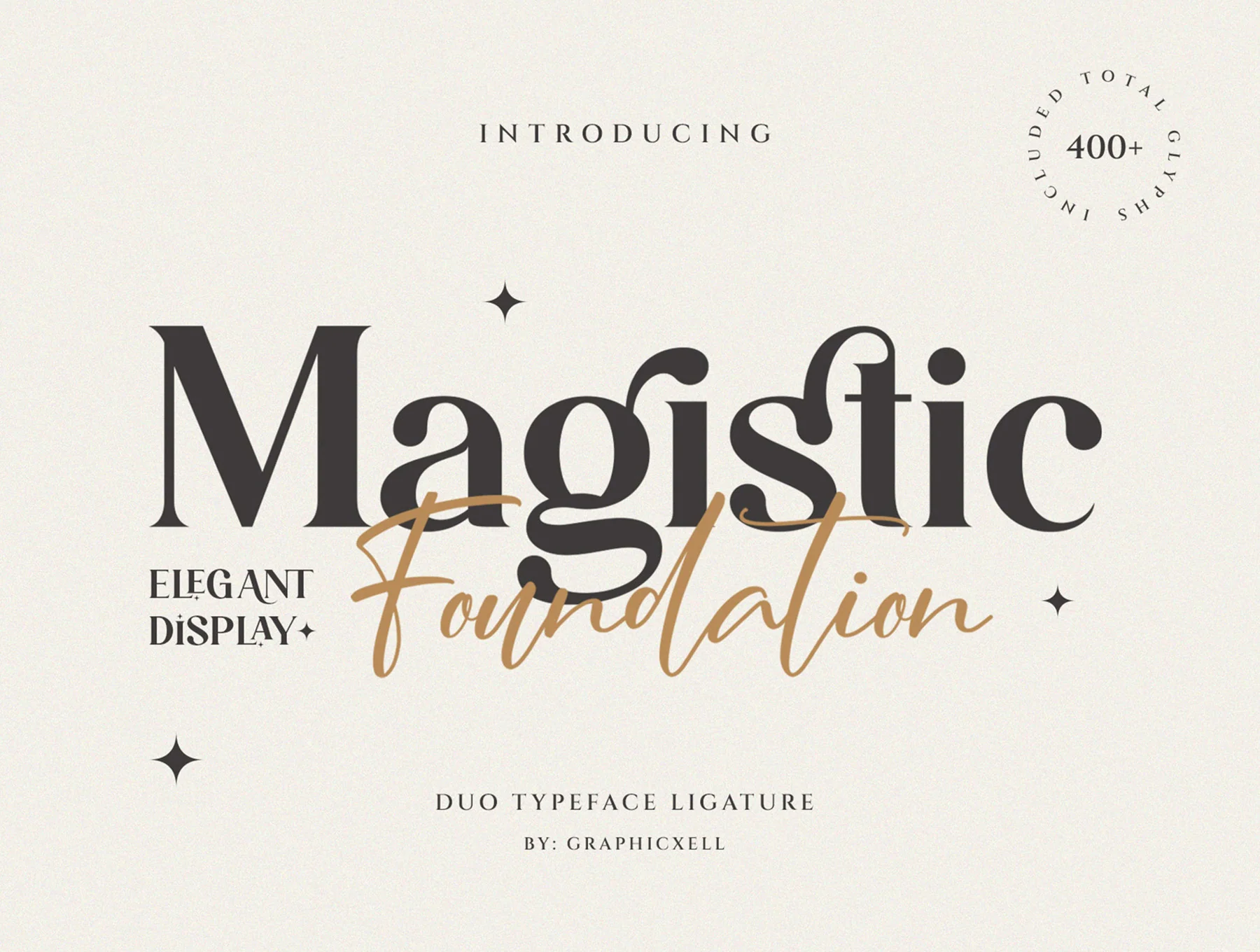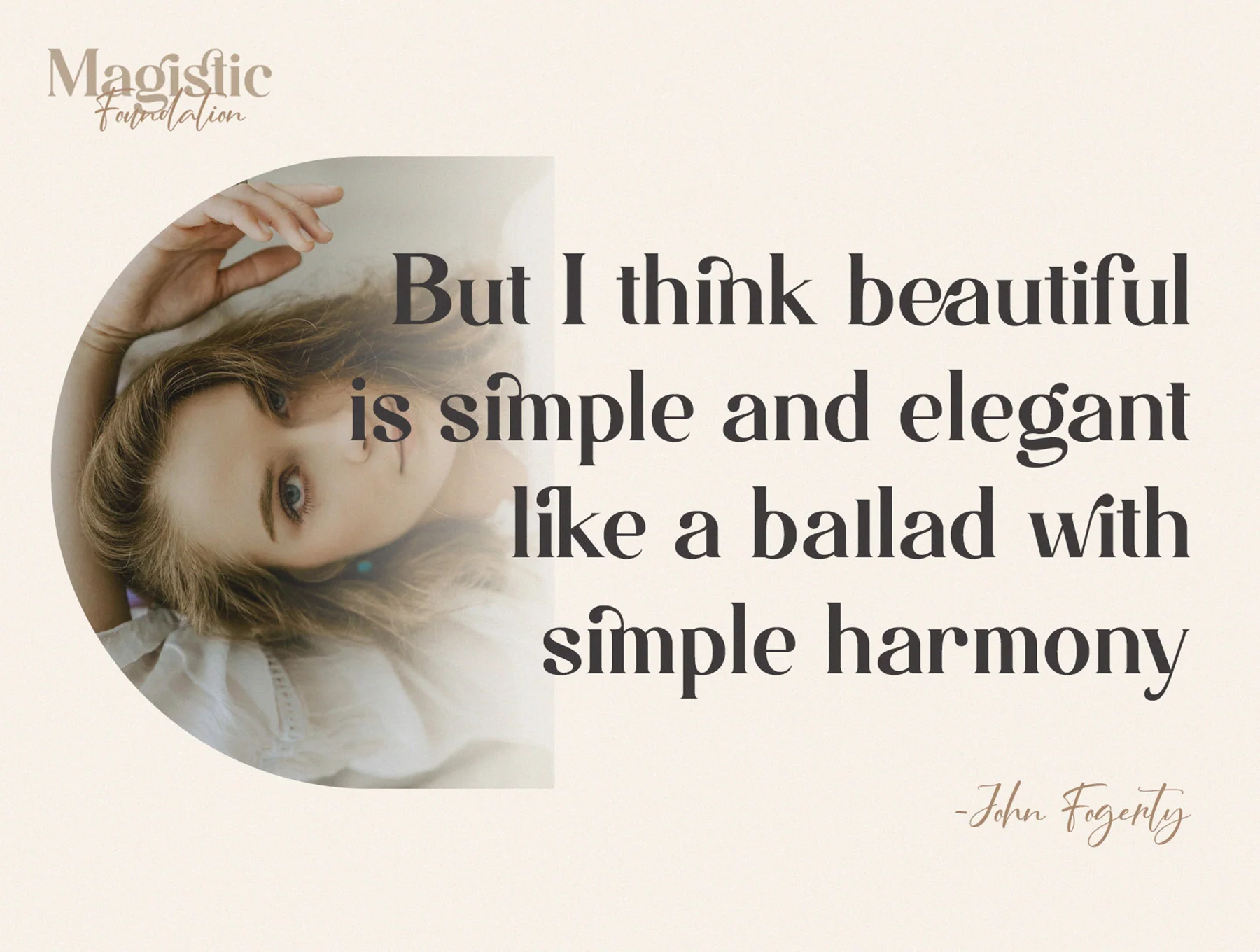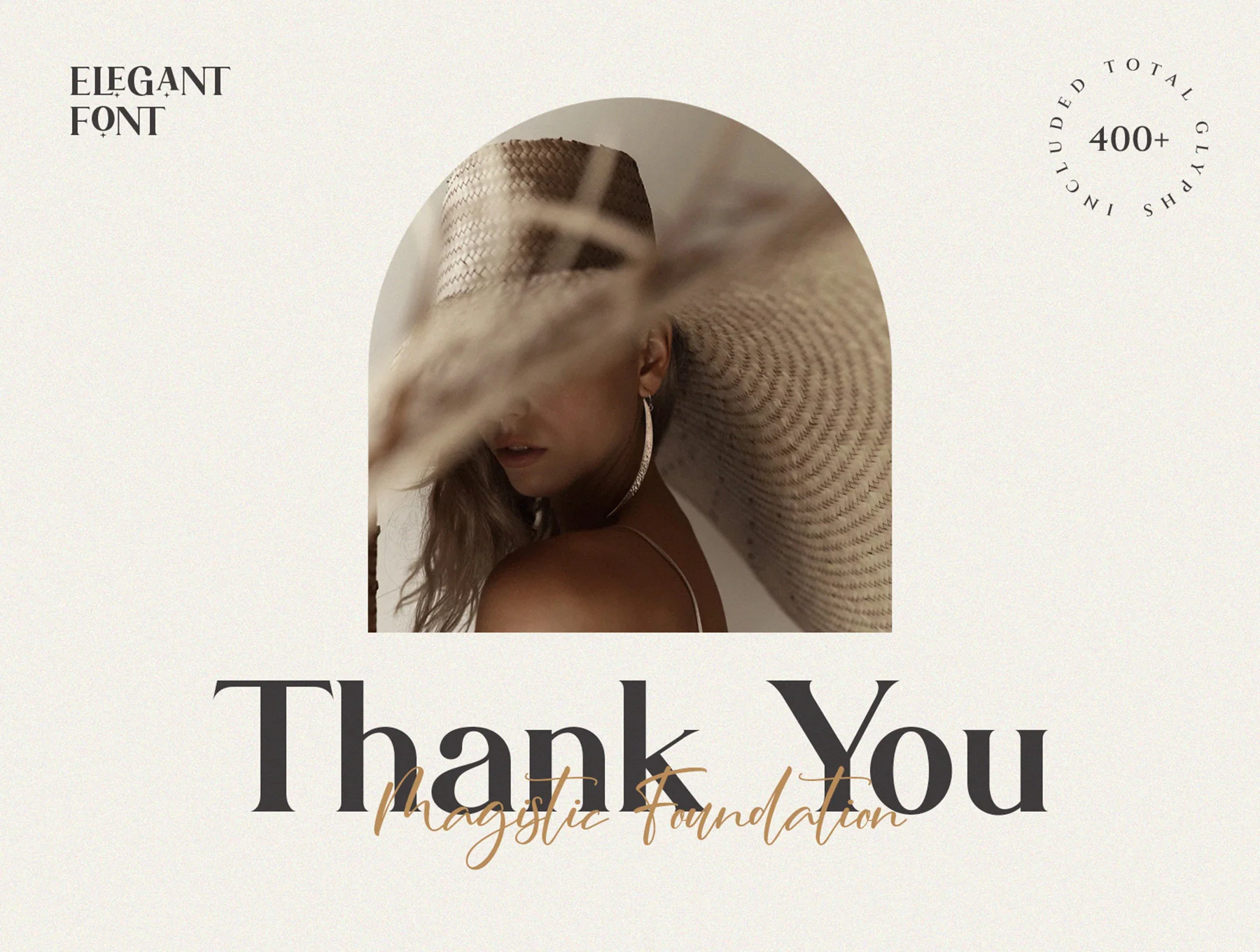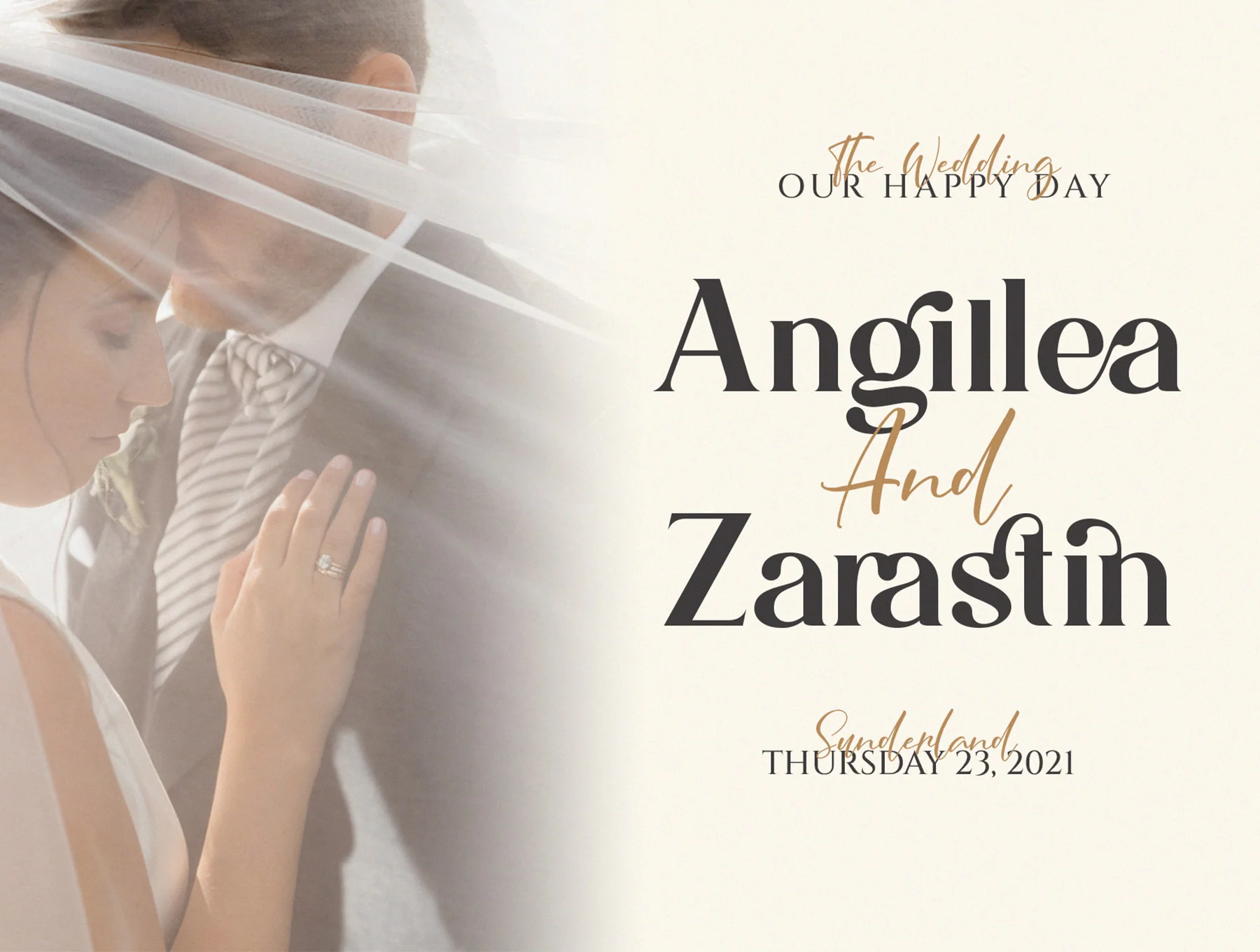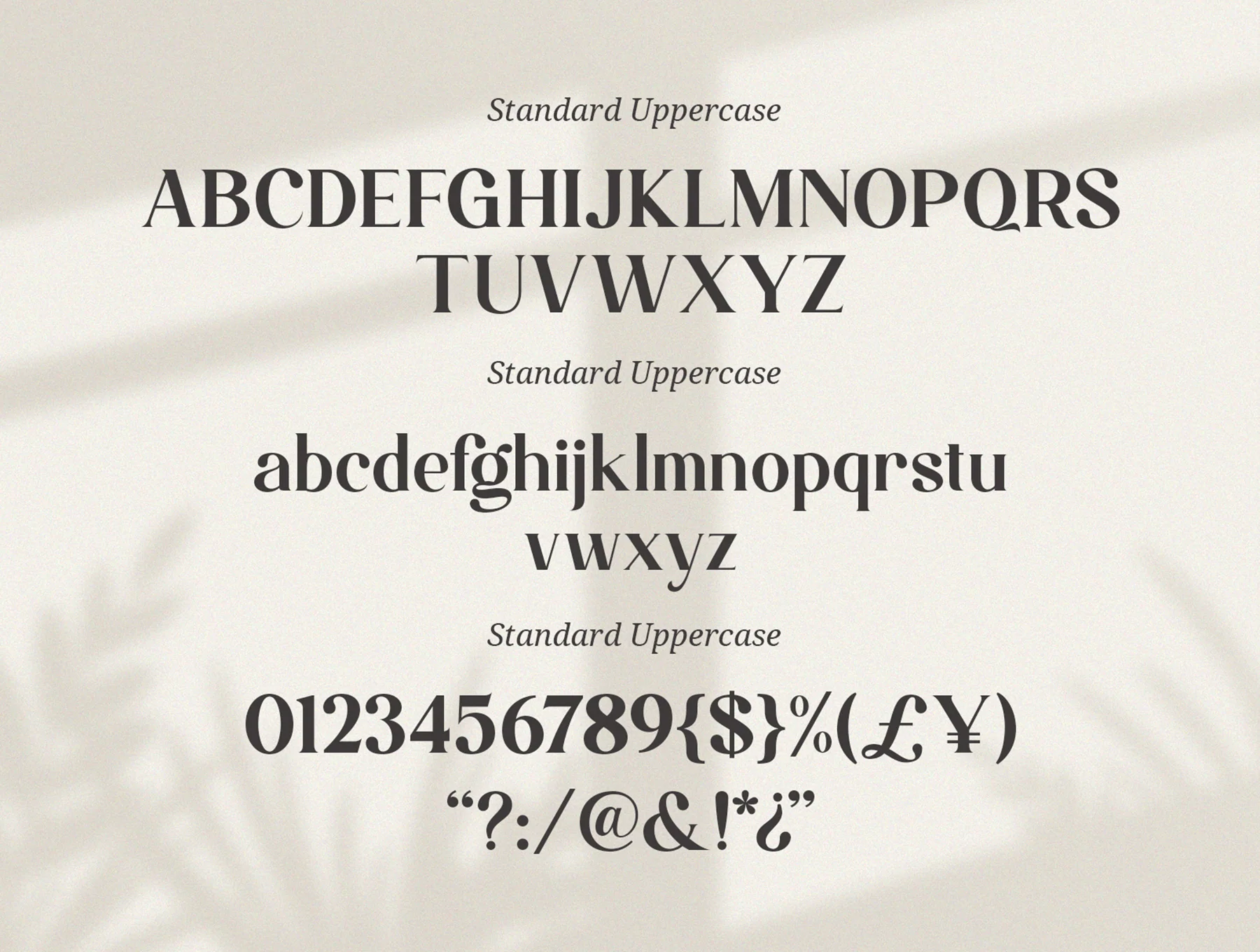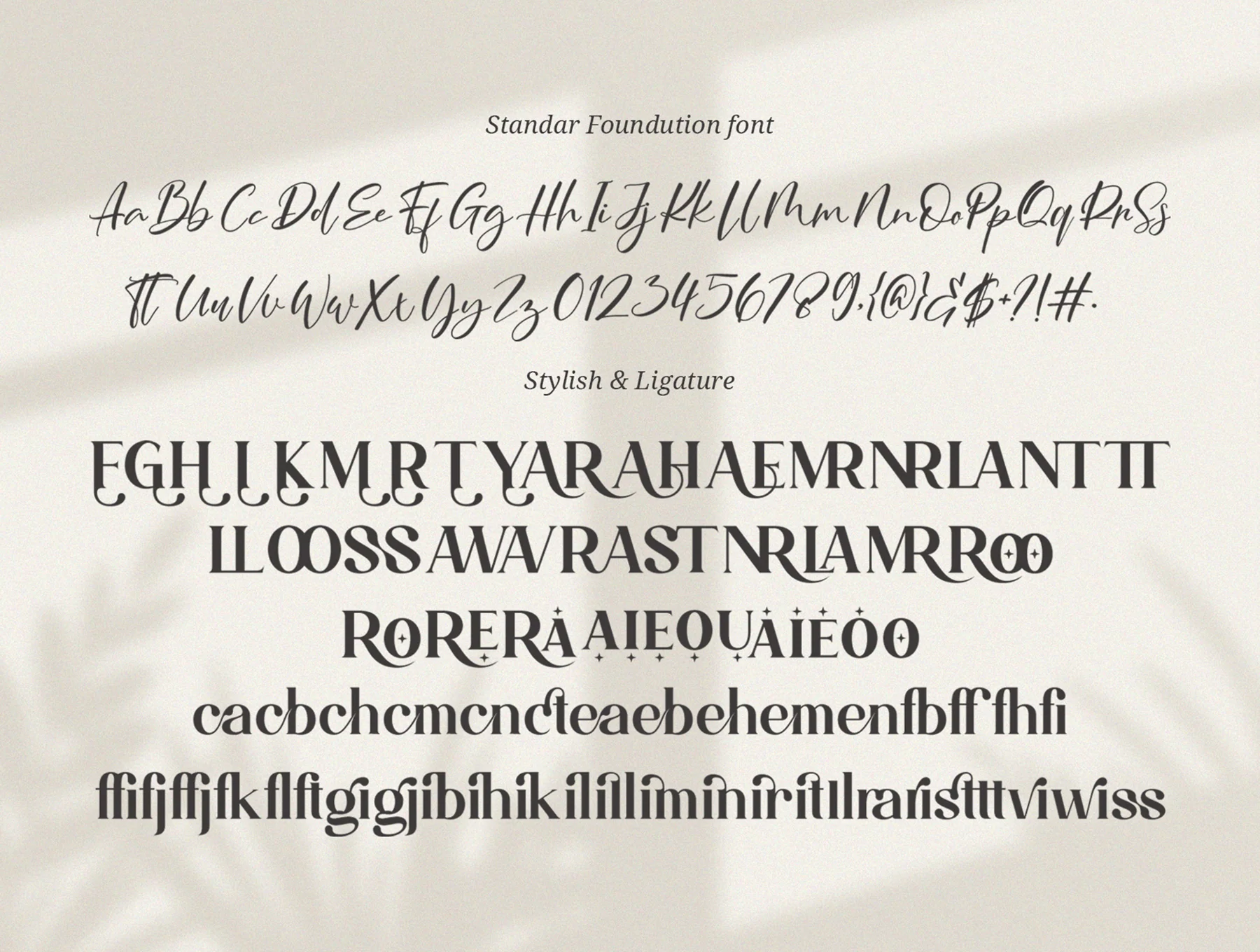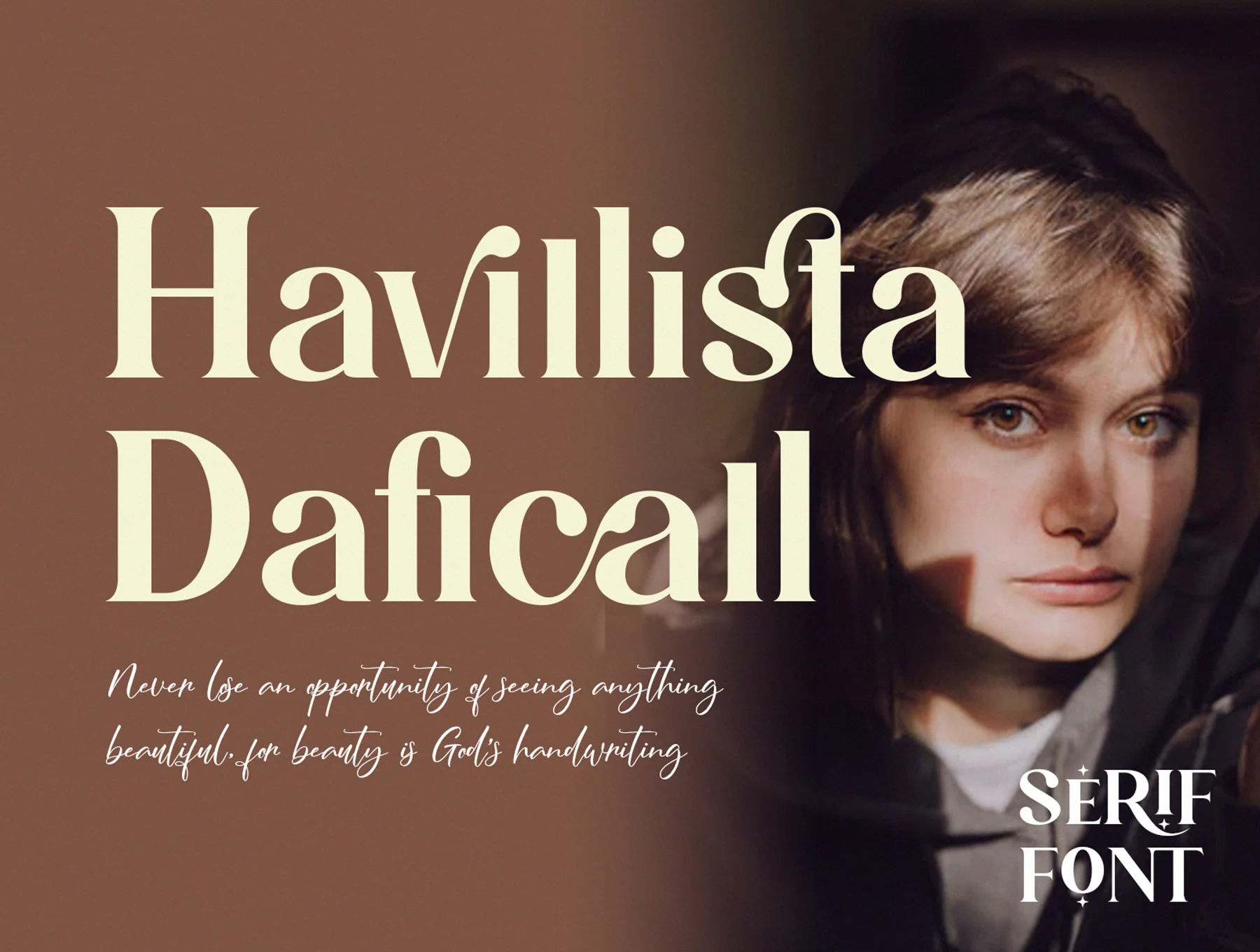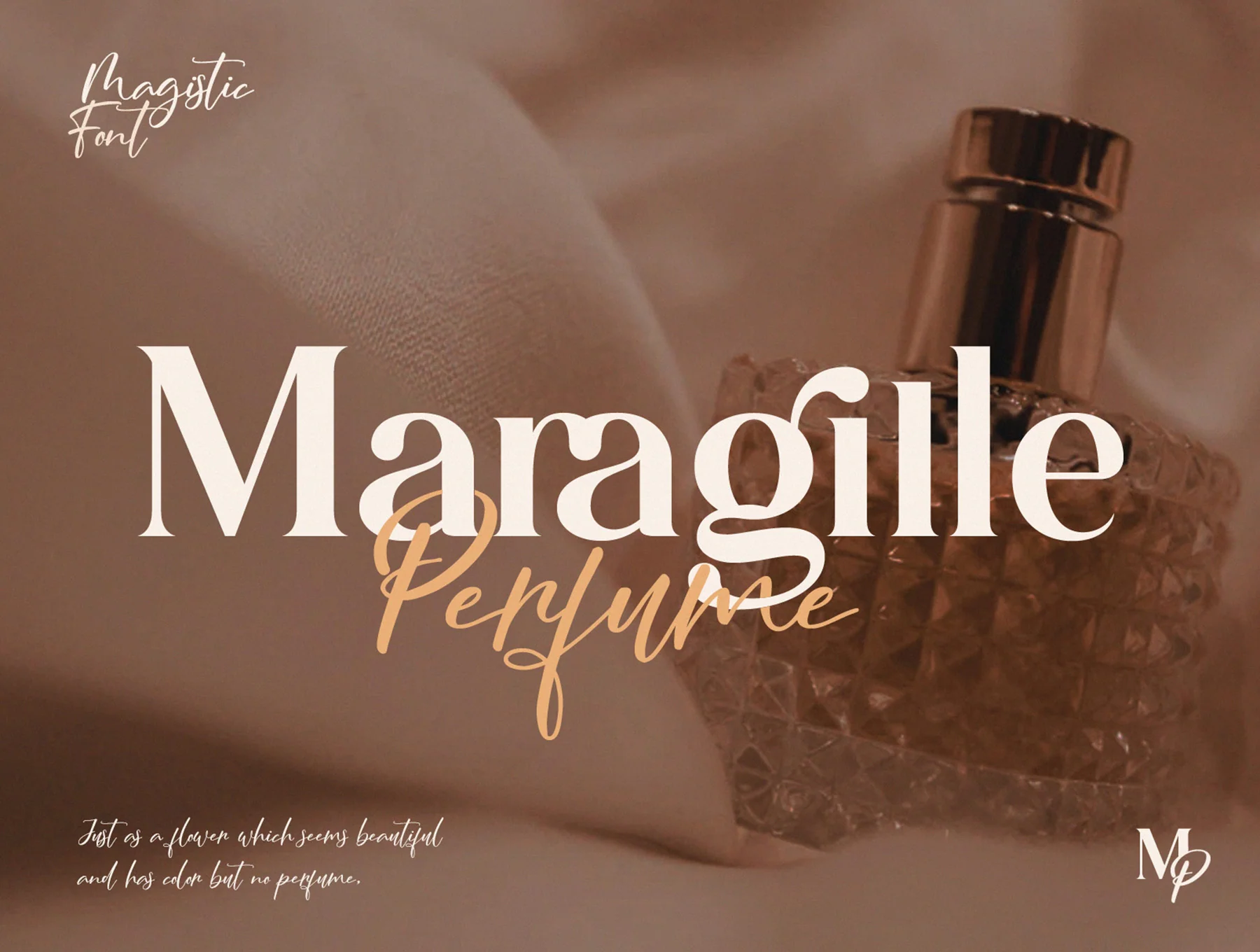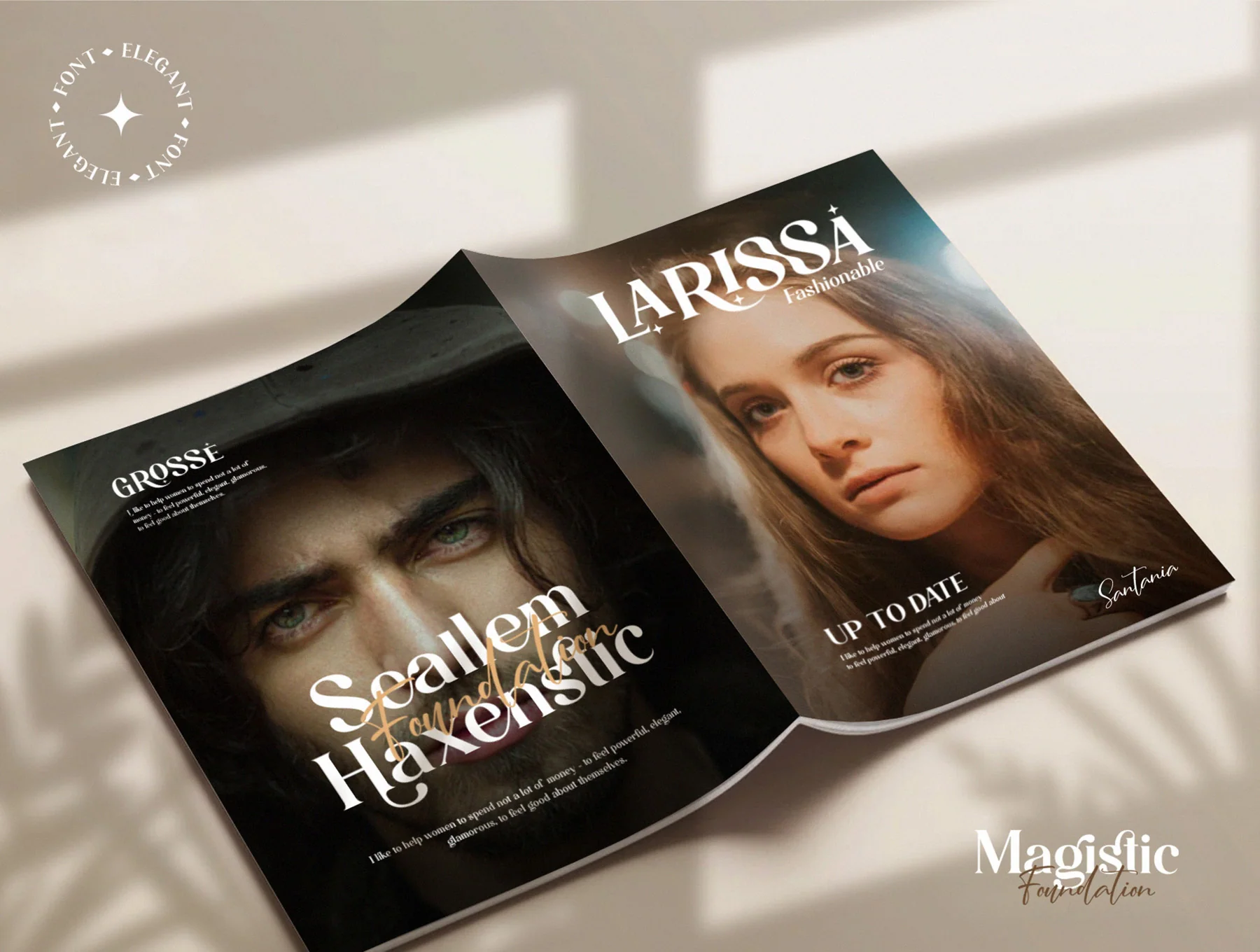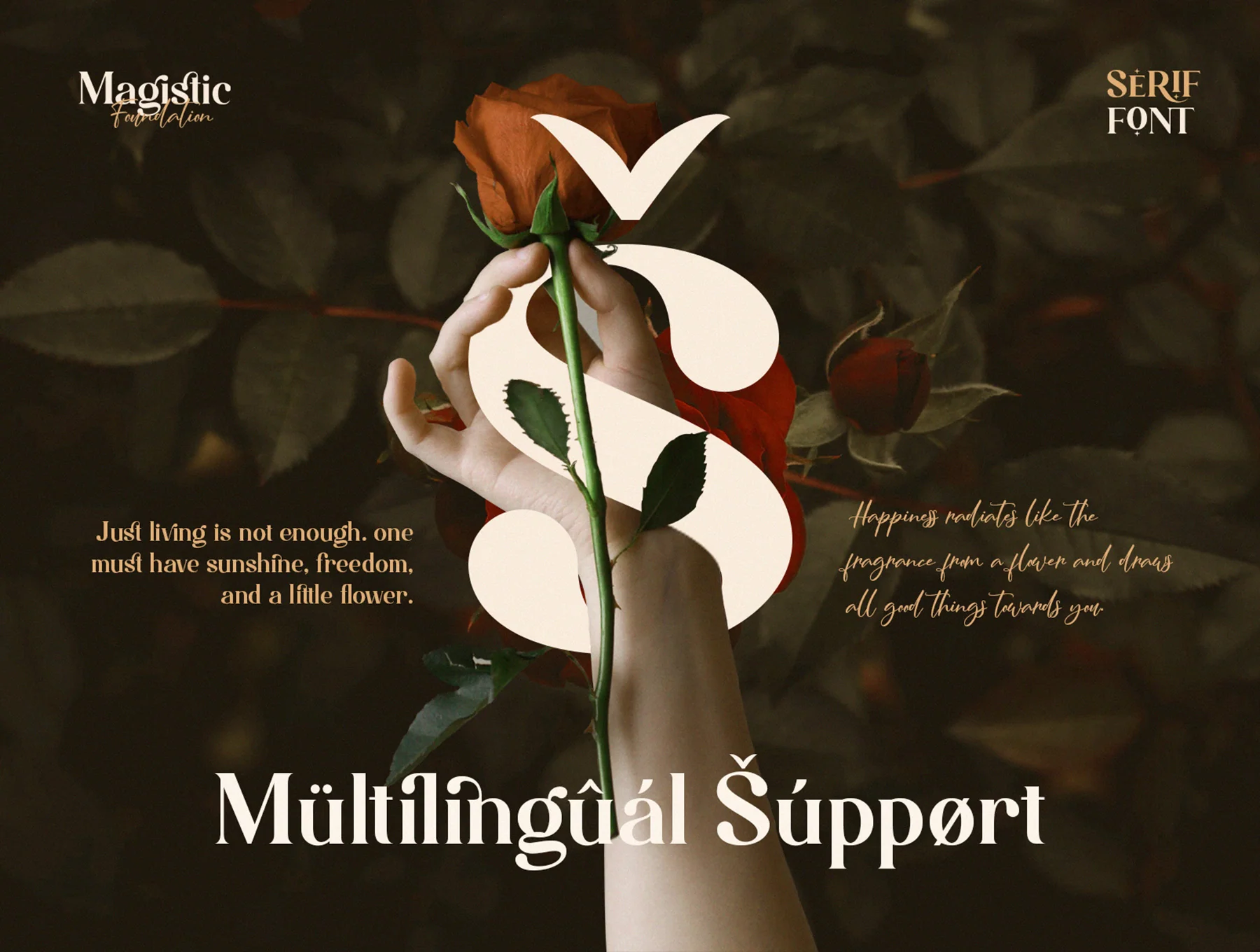
Magistic - Duo Ligature Typeface
Refined Serif Typeface
Complete uppercase and lowercase alphabet
Contemporary and stylish
Multilingual glyphs, numbers, and punctuation
Magistic & Foundution Signature is a chic duo ligature typeface influenced by iconic minimalist logo style, ideal for templates, brochures, videos, ads, branding, logos, and more. Includes Magistic and Foundution Signature in OTF/TTF, web font, standard glyphs, ligatures, accents, PUA encoding, multilingual support, PC/Mac use, and easy setup. Preview images not included.